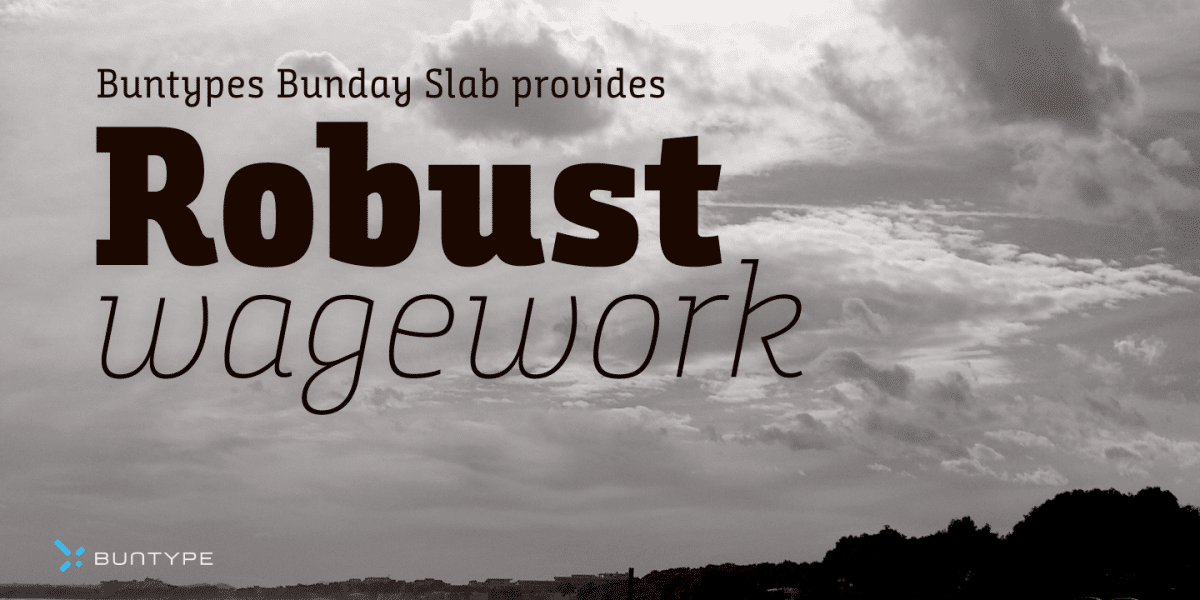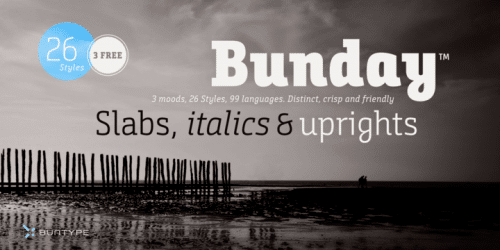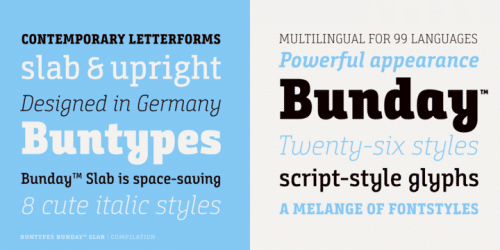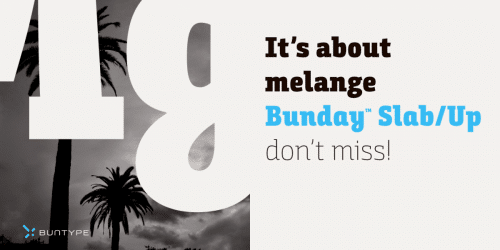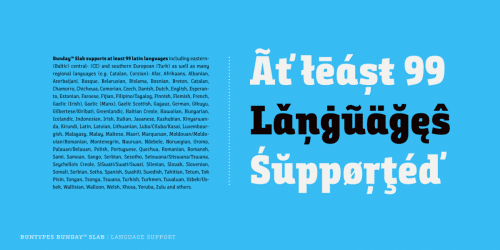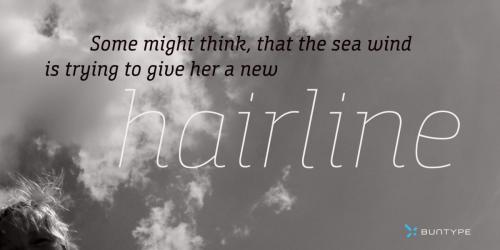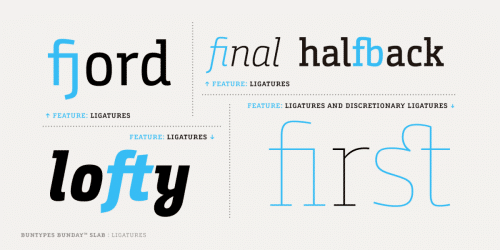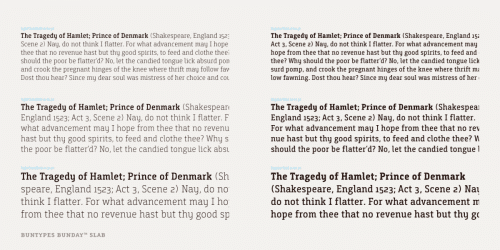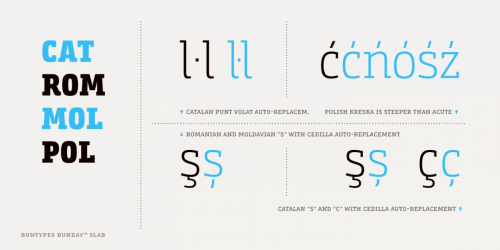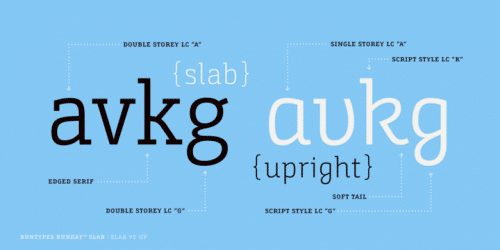
The new Bunday™ Slab Font Family consist of three main states with different moods: the crisp and distinctive slab serif, the cute script styled italic and the matching upright italic.
All states of Bunday™ Slab share the same contemporary, clear and open base forms and create a space-saving and pretty homogeneous text colour with good legibility. The font was manually hinted and contains extensive handcrafted kerning tables to ensure perfect appearance in all media. Bunday™ Slab ships with 9 standard, 9 upright italic and 8 italic styles from a considerable thin “Hair” to a pretty fat “Heavy” weight.
It supports at least 99 languages and provides OpenType® features for ligatures, alternative glyphs, localised forms and more.
- Designer: Petra Niedernolte, Ralf Sander